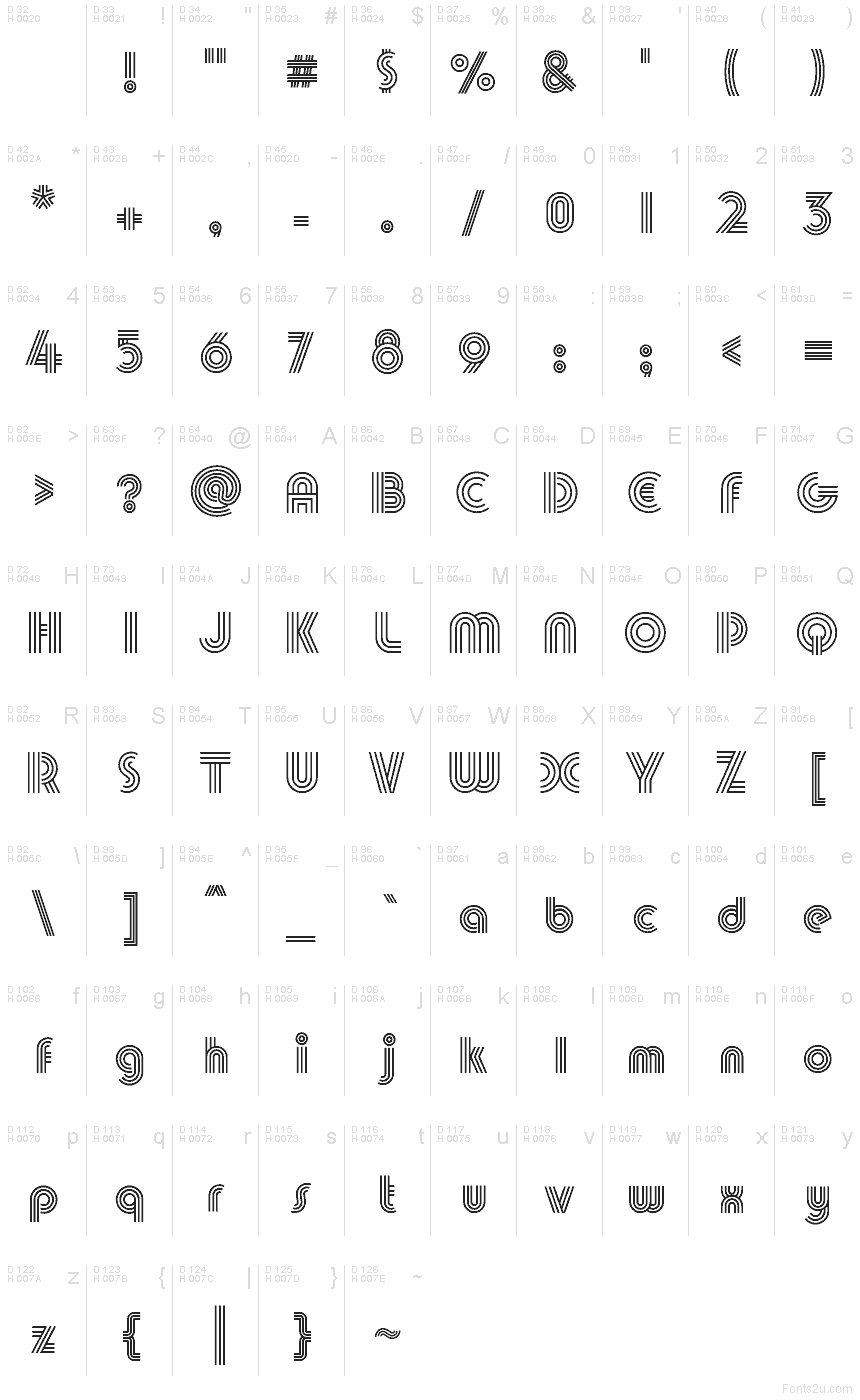
70s Disco Regular
70s Disco font by Galdino Otten Fonts is a free groovy display font. Built around hypnotic, triple-line strokes that ripple like chrome tubing, it radiates vintage dance-floor energy without feeling kitsch. The rounded terminals and generous counters keep the rhythm smooth, so those concentric lines read crisp and bright at headline sizes.
Using 70s Disco, you get instant retro sparkle for event posters, album covers, nightlife flyers, brand wordmarks, packaging, and bold social graphics. The consistent stripe spacing creates a pulsing cadence that grabs attention while staying legible, especially on color-pop gradients or dark backgrounds. Pair this free font with a plain geometric sans for body copy, and let it breathe big—it shines when scaled up with slightly loose tracking.
70s Disco